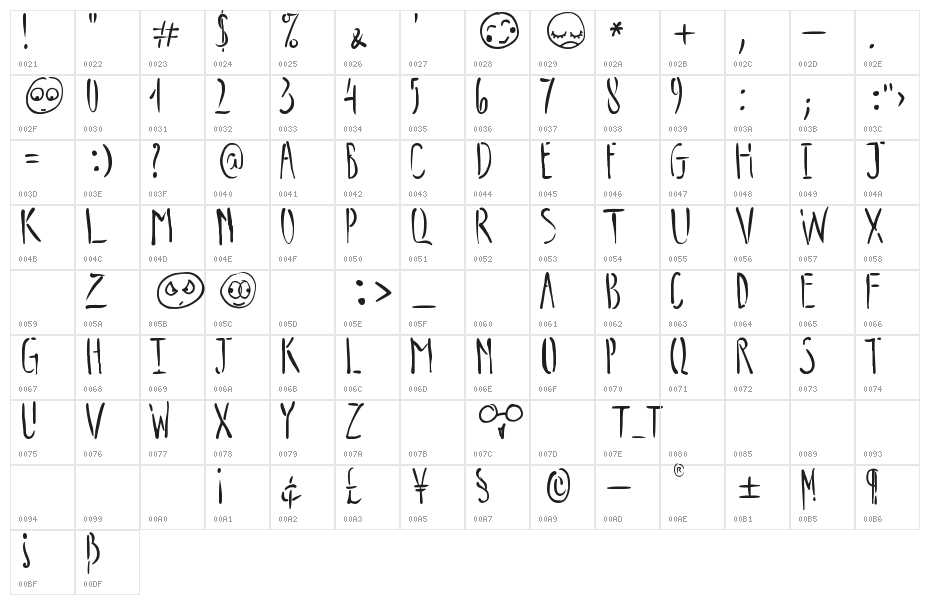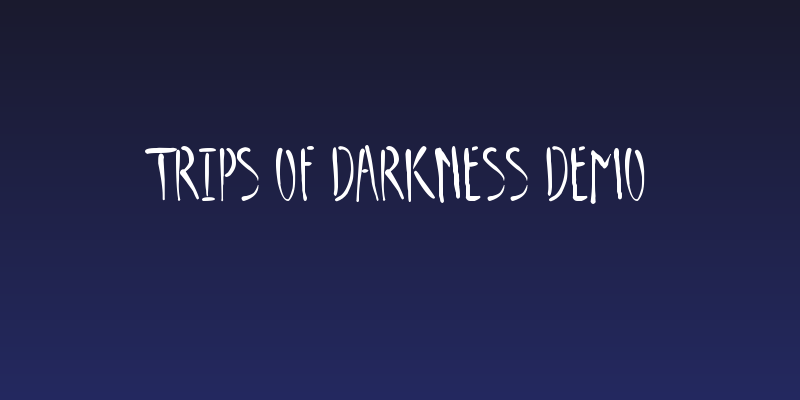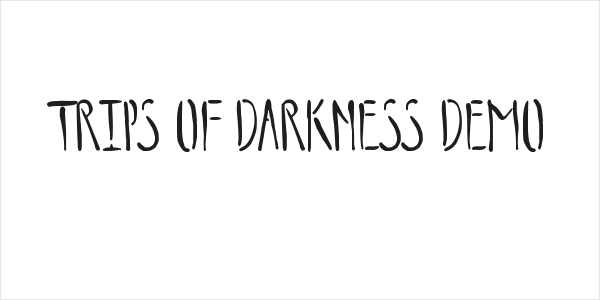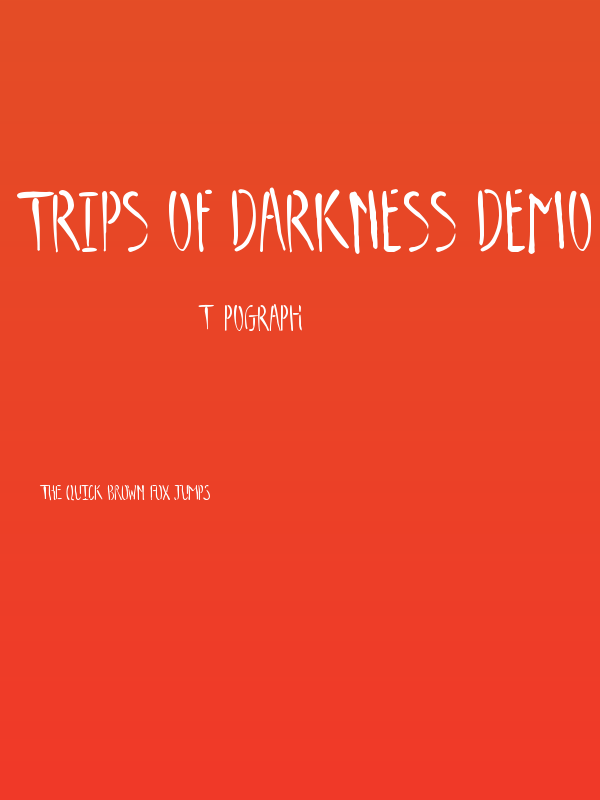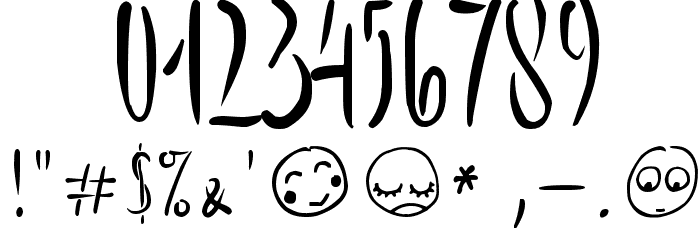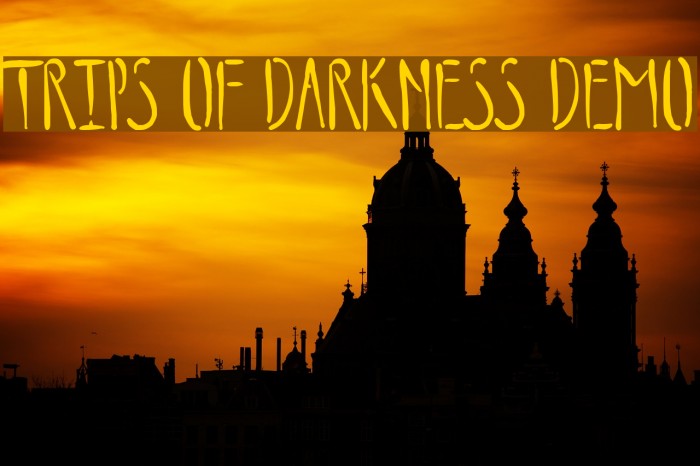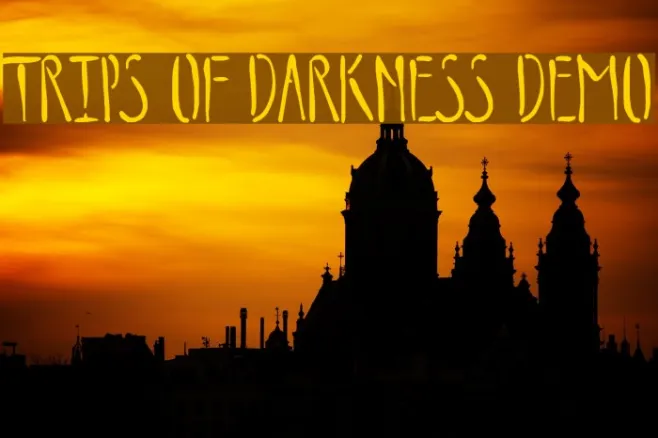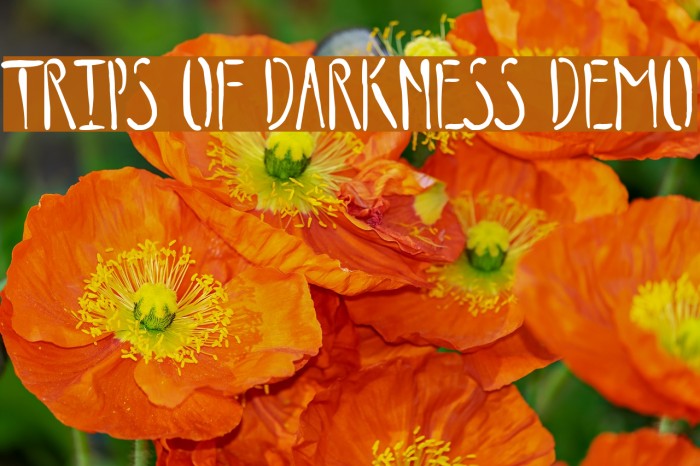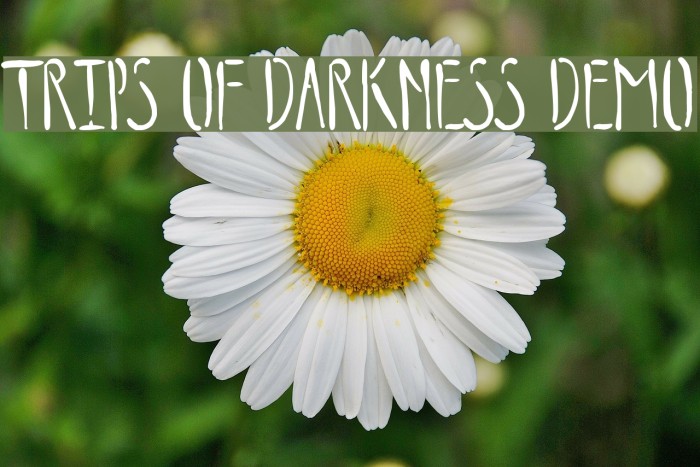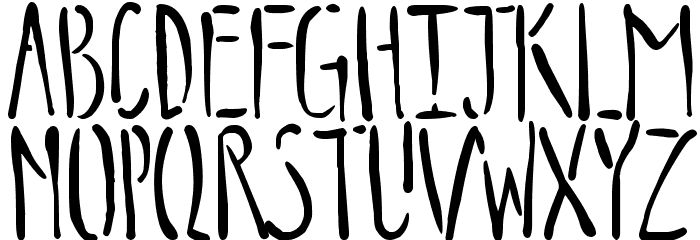
Trips of Darkness Demo Font
Trips of Darkness Demo Description
This font features a unique, hand-drawn style with an irregular, organic appearance. The letters are elongated and slightly wavy, giving them a whimsical and playful feel. The strokes vary in thickness, adding to the font's dynamic and lively character. The uppercase and lowercase letters maintain a consistent style, with the uppercase being slightly more pronounced. Numbers and special characters are included, following the same artistic design. This font is perfect for creative projects that require a touch of personality and flair.
| Use Case | Logos, Headlines, Creative projects |
| Proposed Projects | Ideal for artistic posters, children's book illustrations, creative branding, and unique invitations. |